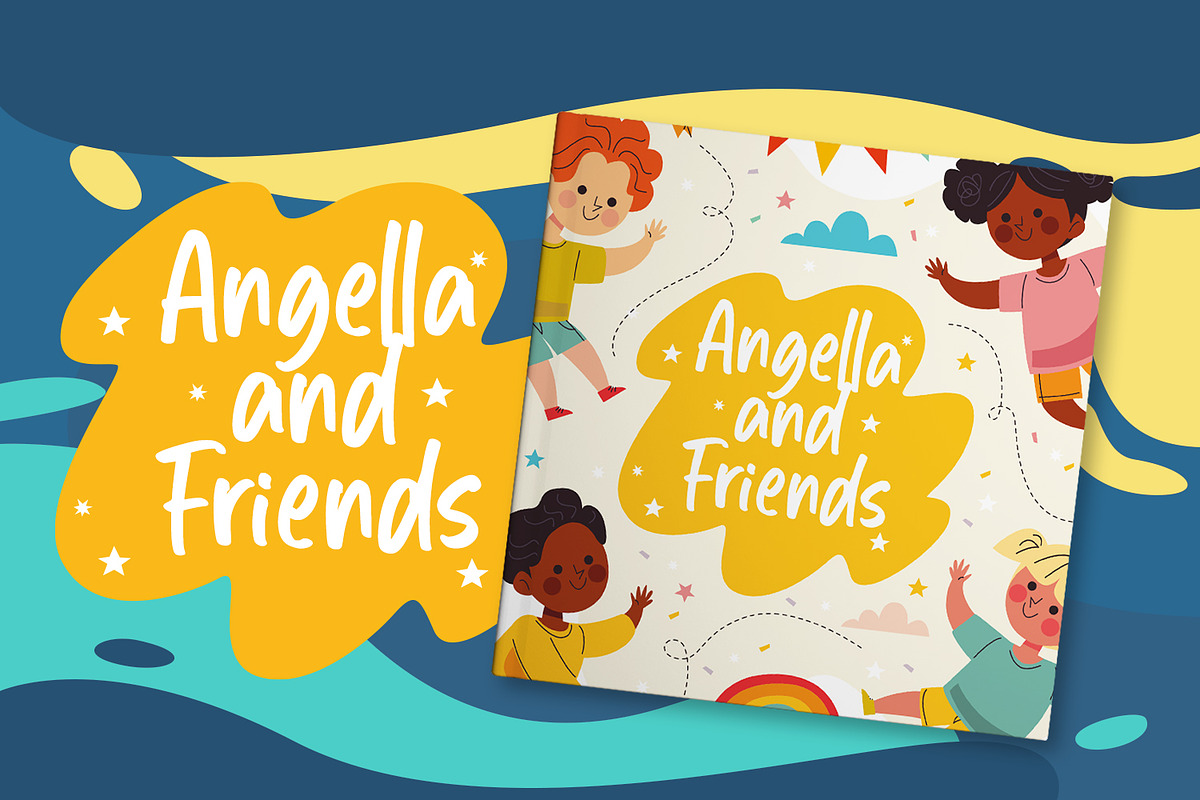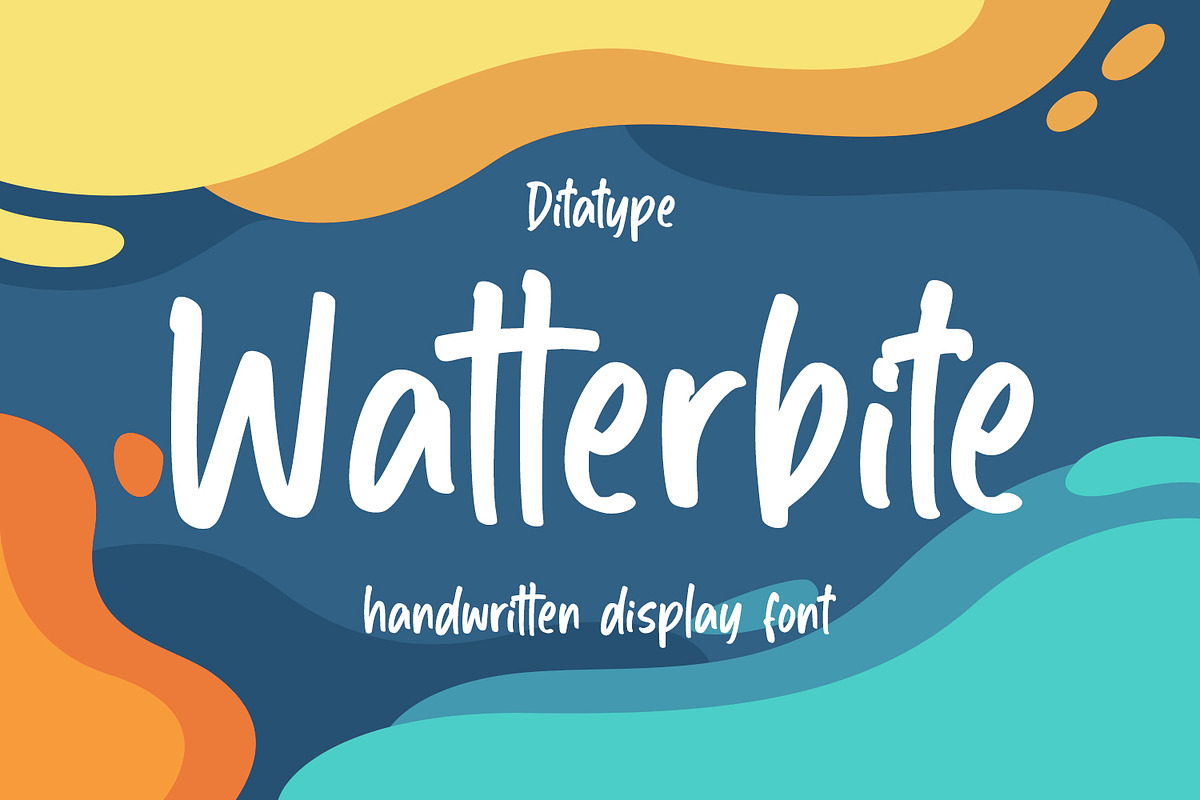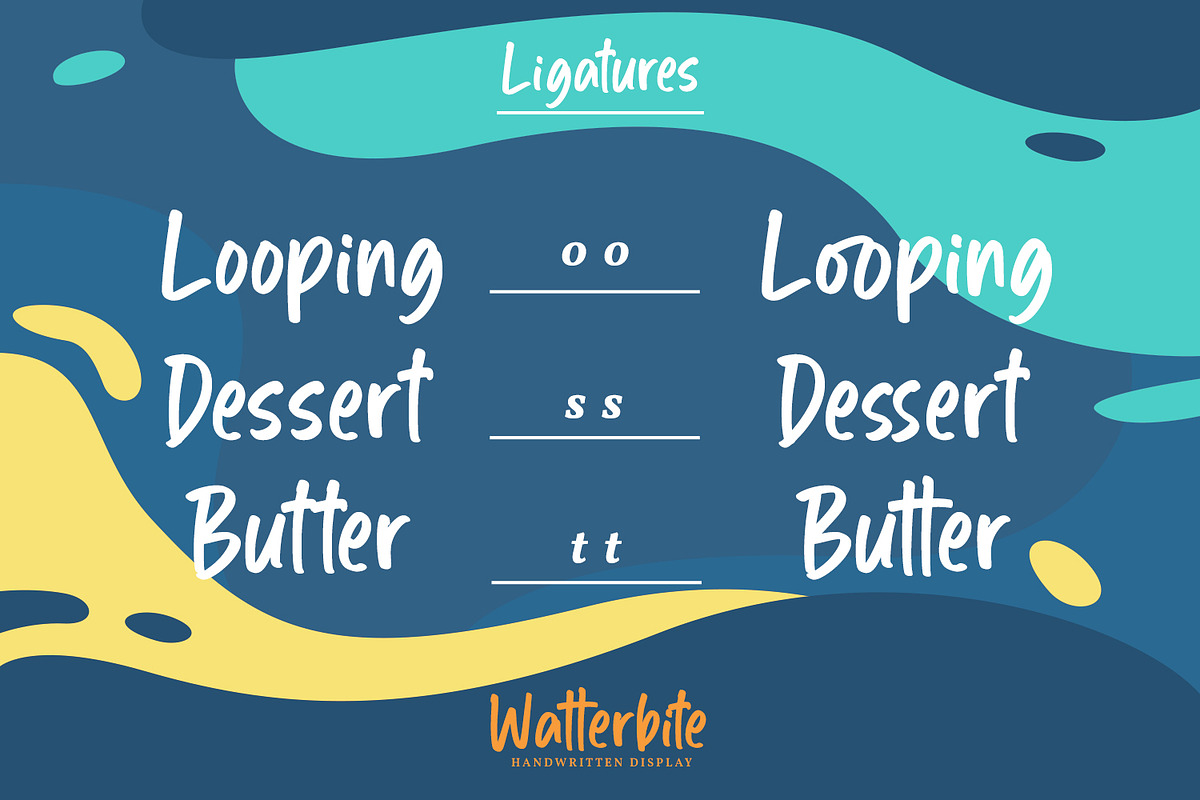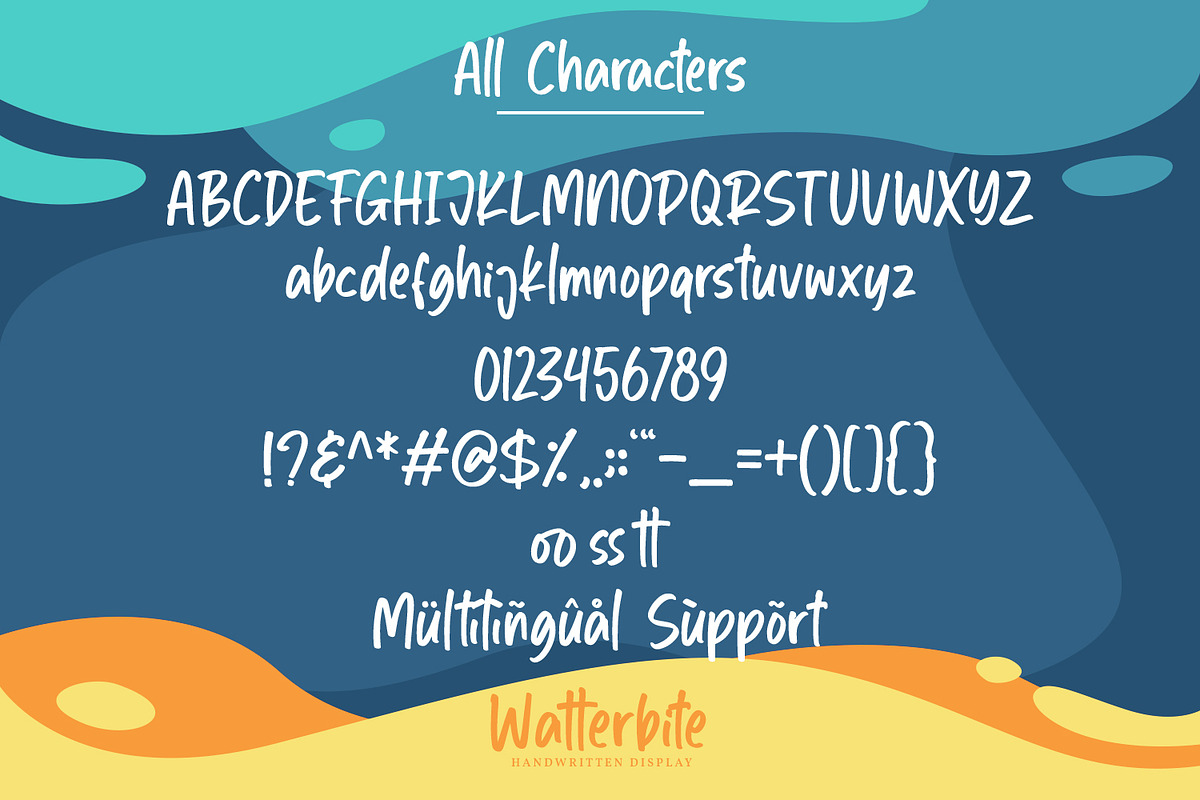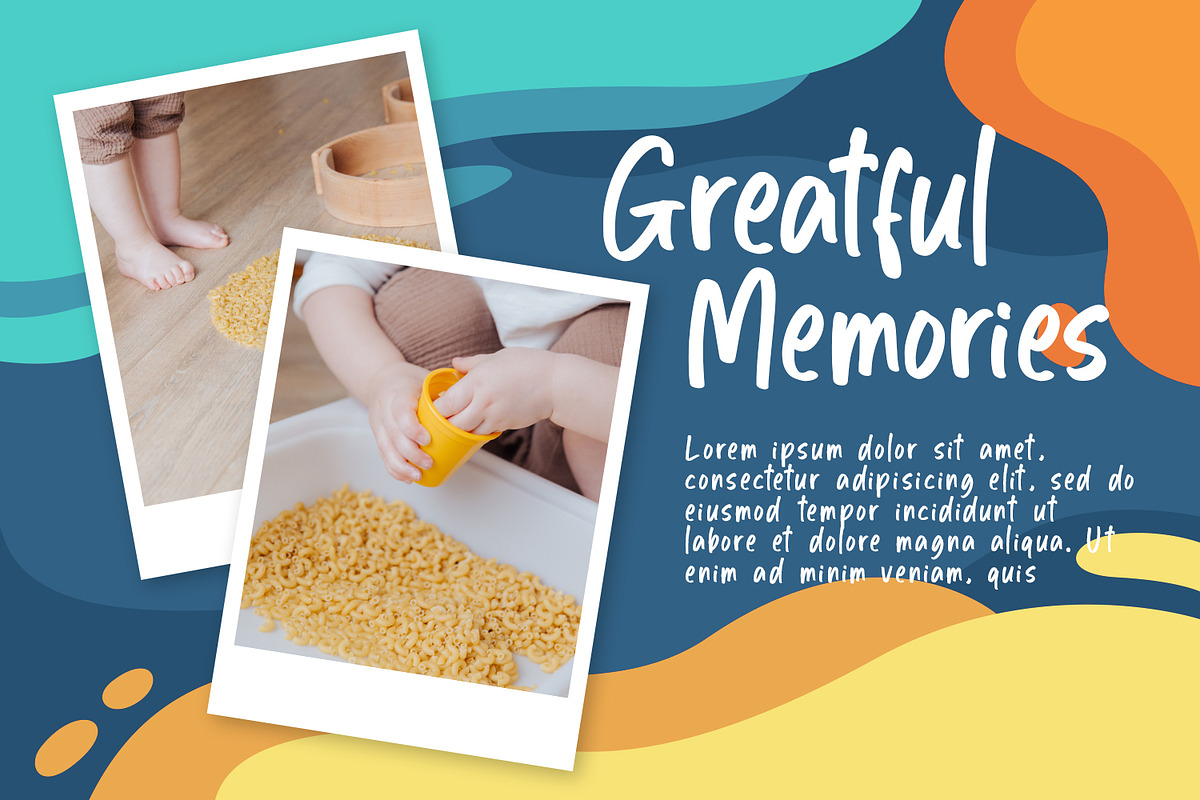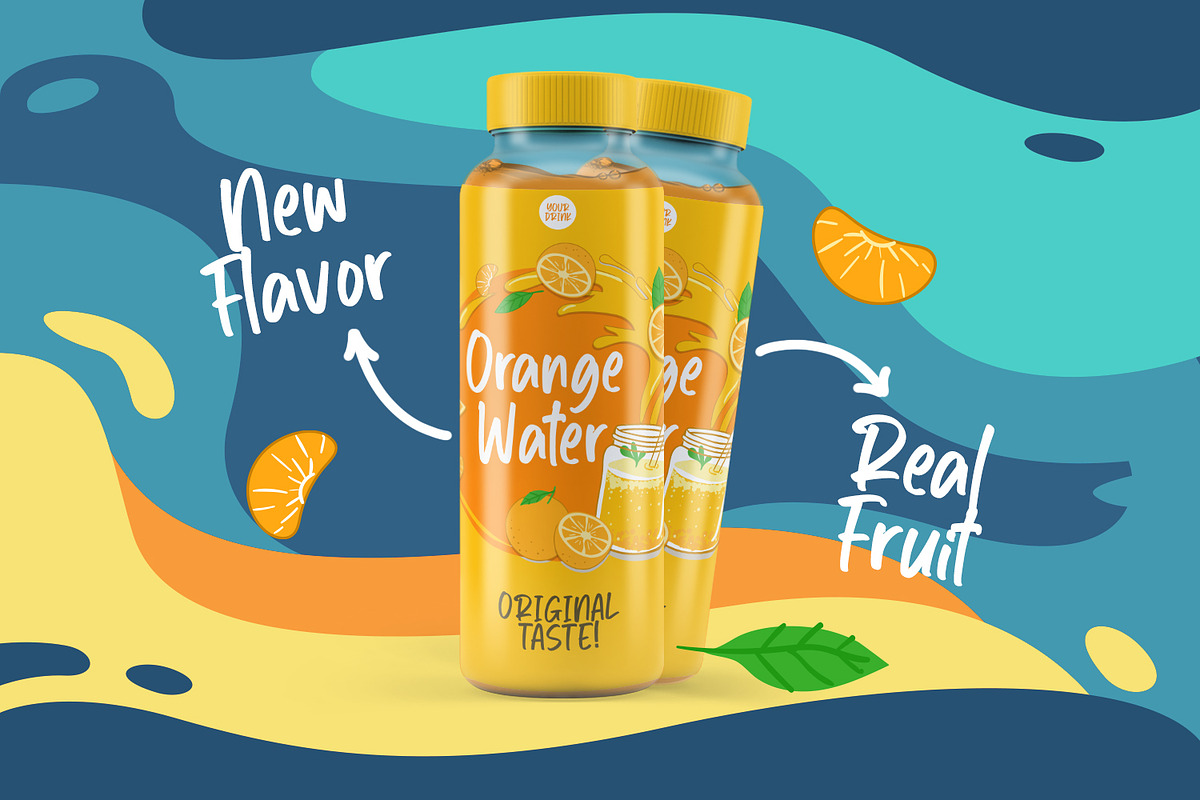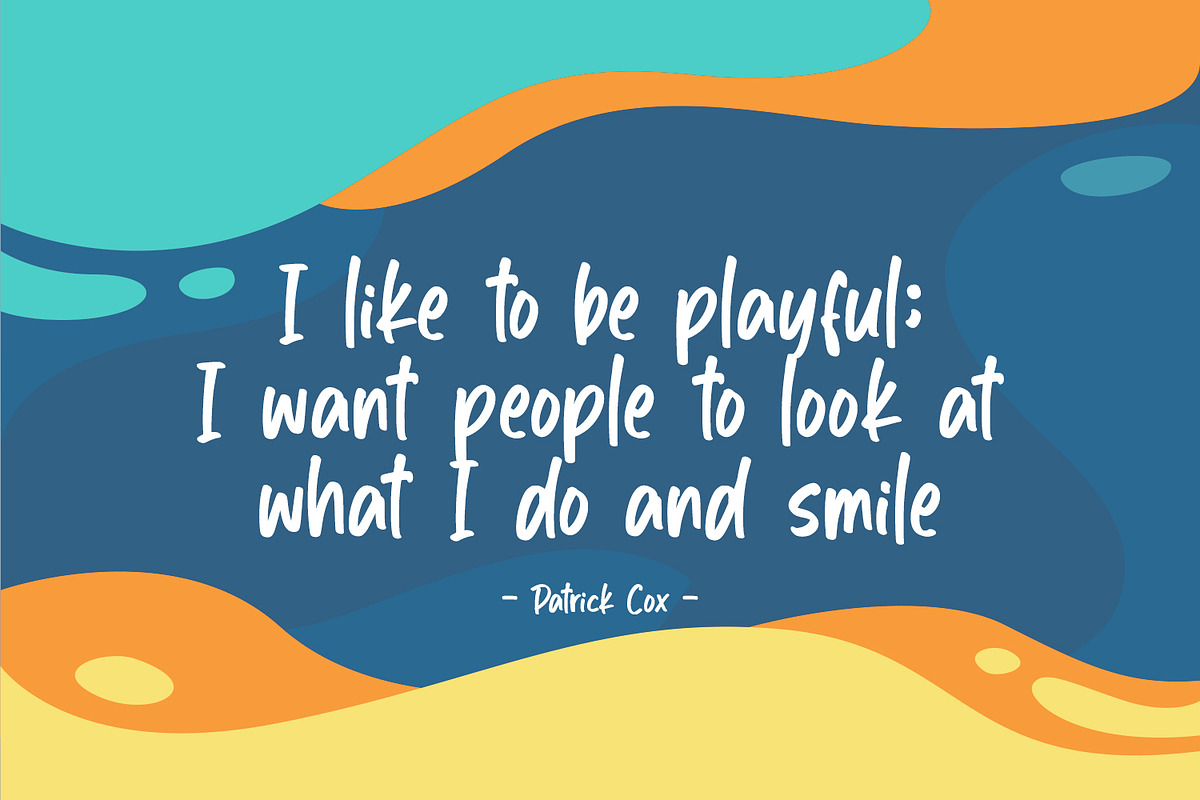
Watterbite
Watterbite is a classy script font. Made for any professional project branding. It is the best for logos, branding and quotes. Every stroke, and curve was created to entice happiness and elegance. Use it to create standout headings, promote your online sales, Instagram quotes, and even printed materials like business cards, t-shirts, or invitations.
- Beautiful Ligatures